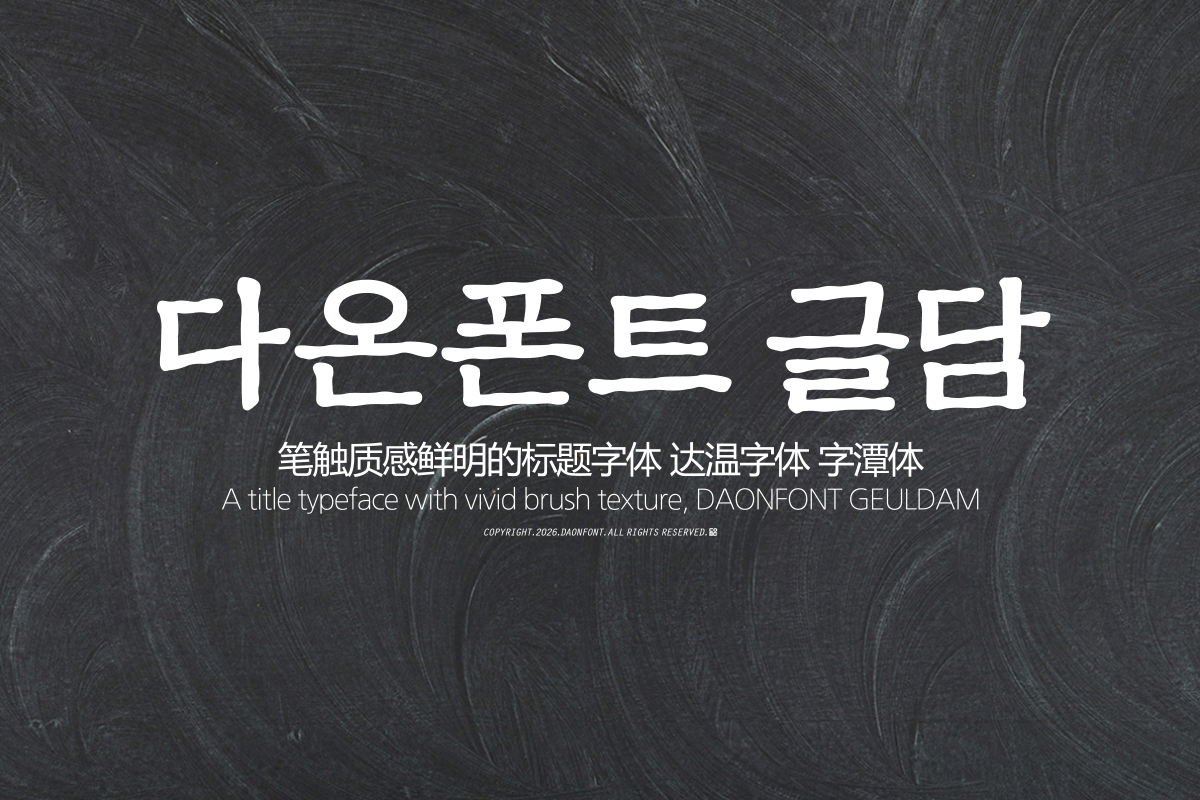
DAON GEULDAM
'GEULDAM' is a Hangul typeface that captures a simple and sincere sensibility in every single character. Designed with neat character forms and excluding unnecessary ornamentation, it creates a natural and comfortable flow in sentence composition. Minimizing embellishment and capturing the inherently clear and simple appearance of the characters, 'GEULDAM' is a brushstroke typeface suitable for all designs that wish to convey a calm yet sincere message.